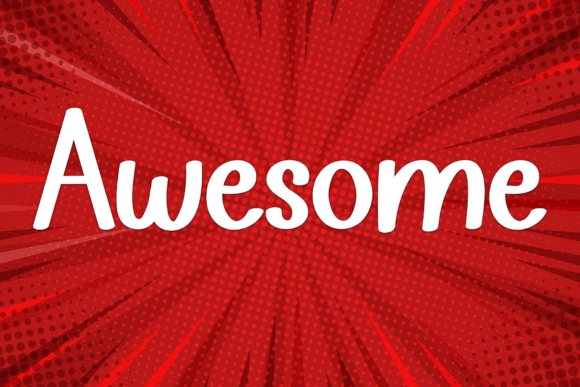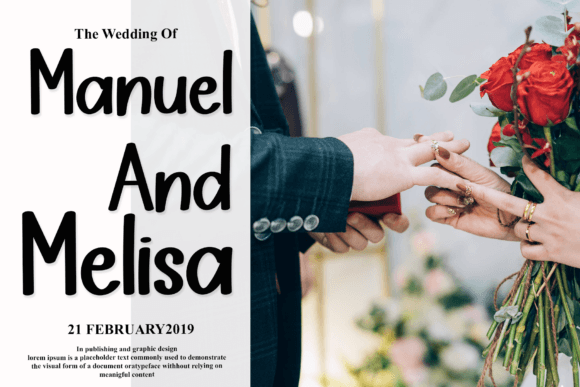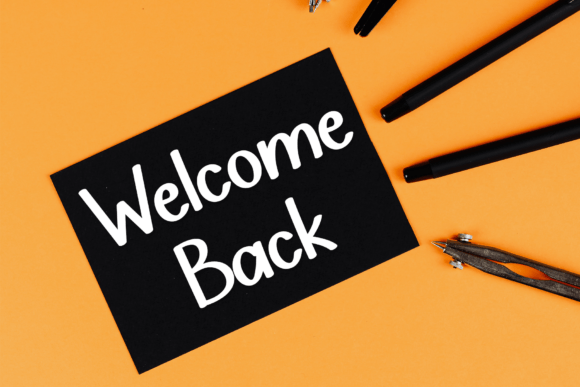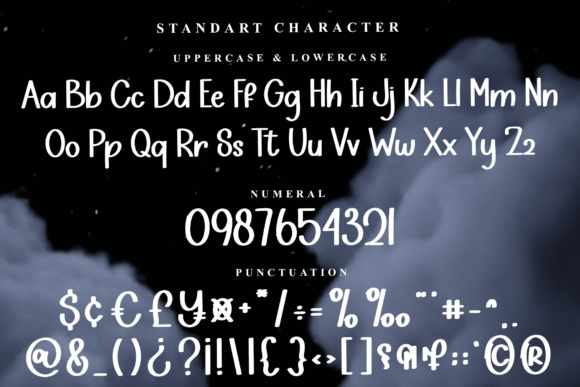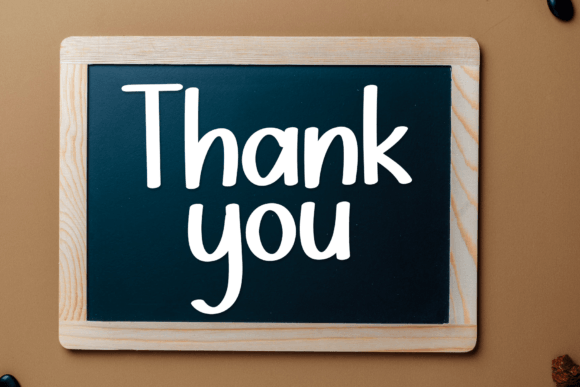
Introducing Comic Lover Font: The Sweet and Friendly Handwritten Font
Are you a designer or crafter looking for a font that can add a personal touch to your projects? Look no further than Comic Lover Font, a sweet and friendly handwritten font that’s perfect for a wide range of designs. With its natural and unique style, Comic Lover Font is incredibly versatile and can be used in a variety of creative projects, from digital art to craft projects.
The Characteristics of Comic Lover Font
Comic Lover Font is a handwritten font that’s designed to look like it was written with a pen or pencil. Its natural and unique style gives it a charming and friendly feel that’s perfect for designs that need a personal touch. The font has a distinctive look that’s both sweet and playful, making it ideal for projects that require a touch of whimsy.
The Benefits of Using Comic Lover Font
So why choose Comic Lover Font for your next project? Here are just a few benefits of using this versatile font:
- Unique and eye-catching: Comic Lover Font has a distinctive look that’s sure to grab attention. Its unique style sets it apart from more traditional fonts and makes it perfect for designs that need to stand out.
- Versatile: Comic Lover Font is incredibly versatile and can be used in a wide range of designs, from digital art to craft projects. Its friendly and approachable style makes it perfect for projects that need a personal touch.
- Easy to read: Despite its playful style, Comic Lover Font is easy to read and understand. This makes it perfect for designs that need to communicate a message, such as posters, flyers, and social media graphics.
How to Use Comic Lover Font in Your Designs
Comic Lover Font is incredibly easy to use and can be incorporated into a wide range of designs. Here are a few ideas to get you started:
- Digital art: Comic Lover Font is perfect for digital art projects, such as illustrations, comics, and graphic novels. Its playful style adds a touch of whimsy and personality to any design.
- Craft projects: Comic Lover Font is also great for craft projects, such as scrapbooking, card making, and journaling. Its friendly style makes it perfect for projects that need a personal touch.
- Social media graphics: Comic Lover Font is perfect for social media graphics, such as Facebook posts, Instagram stories, and Twitter headers. Its playful style adds a touch of personality to any design.
Tips and Tricks for Getting the Most Out of Comic Lover Font
Here are a few tips and tricks for getting the most out of Comic Lover Font:
- Experiment with different colors: Comic Lover Font looks great in a variety of colors, so don’t be afraid to experiment and find the perfect hue for your design.
- Mix and match with other fonts: Comic Lover Font can be paired with a wide range of other fonts to create a unique and eye-catching design.
- Use it to add a personal touch: Comic Lover Font is perfect for adding a personal touch to your designs. Use it to add a handwritten note or message to your project.
Comic Lover Font is a sweet and friendly handwritten font that’s perfect for designers and crafters. Its natural and unique style makes it incredibly versatile and suitable for a wide range of designs. Whether you’re working on a digital art project, a craft project, or a social media graphic, Comic Lover Font is sure to add a touch of personality and whimsy to your design. So why not give it a try and see what amazing creations you can come up with?